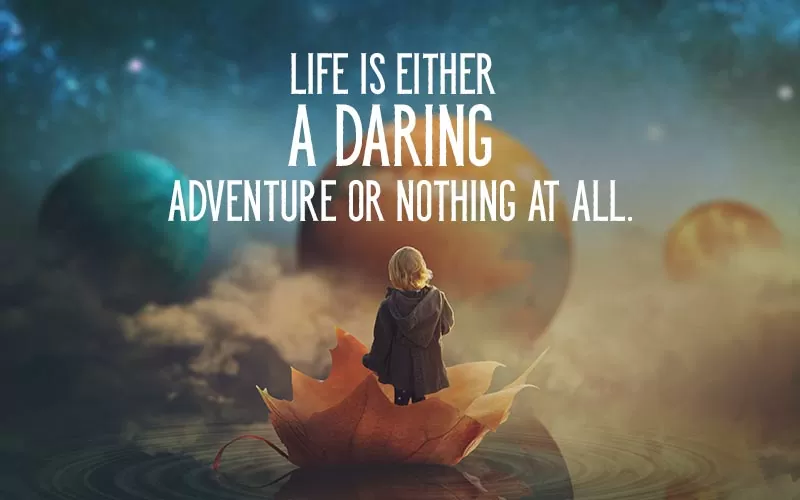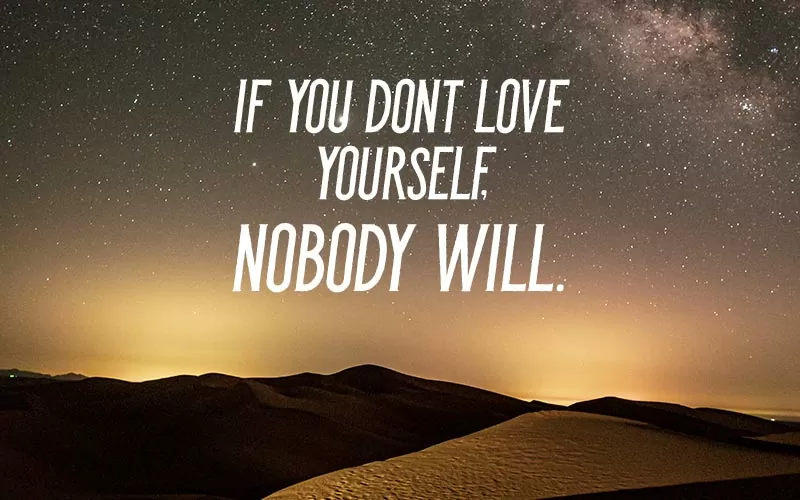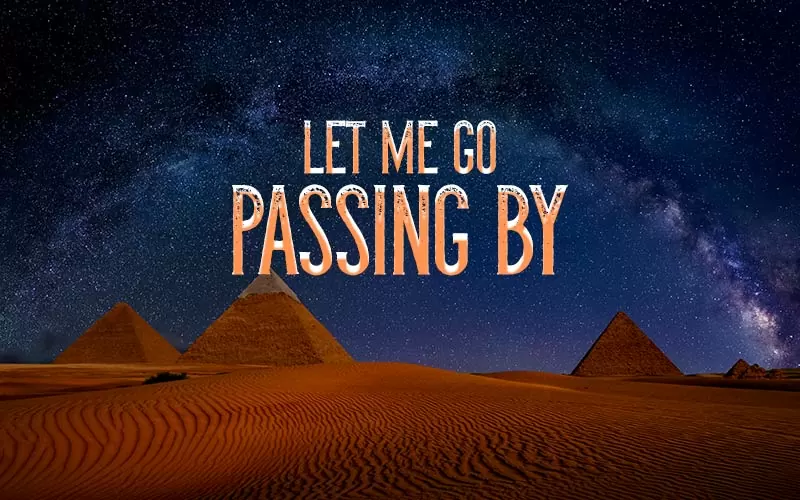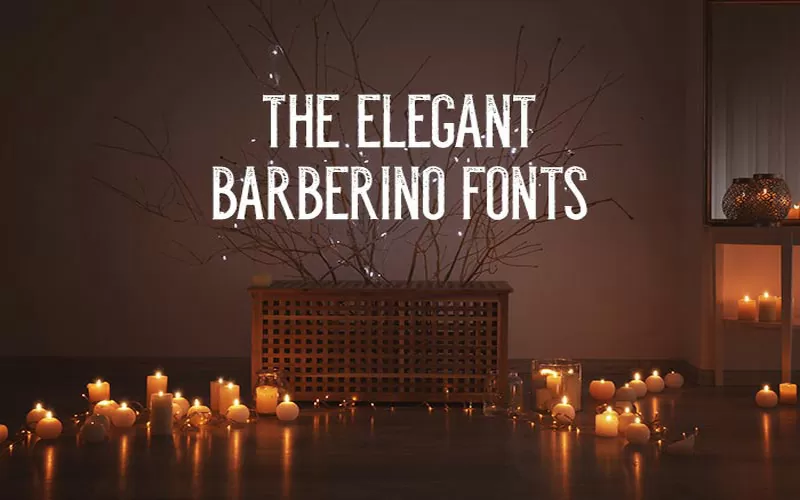
Make A Statement With Minimalist Fonts!
Are you ready to discover our minimalist fonts collection?
The Elegant Minimalist Font is a versatile font family that features a modern design with clean, minimalist lines and elegant curves, perfect for branding, advertising, packaging, and more. What sets it apart is its attention to detail, ensuring maximum legibility and visual appeal. With multiple weights and styles to choose from, designers have complete flexibility to create the perfect look for their projects.
The Categories In This Minimalist Fonts Bundle Include:
Clean Fonts
Rough Fonts
Grunge Fonts
Italic Fonts
A Sneak Peek Into The Minimalist Fonts:
Elegant Fonts